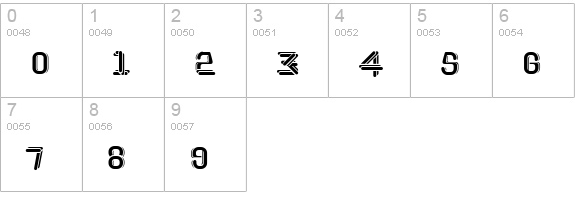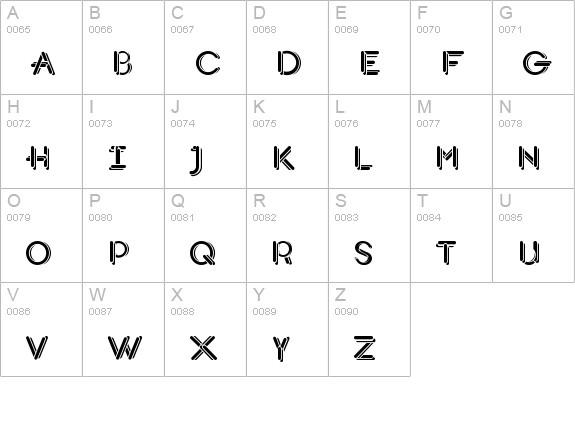
JohanVaaler Solid Font Details
JohanVaaler Solid is a stunning font that combines elegance and strength in its design. With its bold and solid appearance, this font exudes confidence and professionalism, making it perfect for a wide range of projects. Whether you are creating eye-catching headlines, designing impactful logos, or crafting memorable brand identities, JohanVaaler Solid will undoubtedly leave a lasting impression. What sets JohanVaaler Solid apart is not just its visual appeal, but also its accessibility. This font is freely available to download at FontsMarket.com, making it accessible to designers, artists, and enthusiasts alike. Its availability at no cost allows for endless creative possibilities without any limitations. Whether you are a seasoned professional or just starting out, JohanVaaler Solid provides a versatile and high-quality option for your typographic needs. The clean and streamlined letterforms of JohanVaaler Solid ensure excellent legibility, even at smaller sizes, making it suitable for both print and digital mediums. Its well-balanced proportions and subtle detailing make each character effortlessly harmonize with the others, resulting in a cohesive and visually pleasing composition. With a wide range of glyphs and language support, JohanVaaler Solid ensures that your message will be effectively communicated to a global audience. Whether you are designing for English, French, German, or any other language, this font has got you covered. In conclusion, JohanVaaler Solid is a remarkable font that combines style, versatility, and accessibility. Its bold and solid design, coupled with its free availability at FontsMarket.com, makes it a must-have for any designer or creative individual. So why wait? Download JohanVaaler Solid today and embark on a typographic journey filled with endless possibilities.